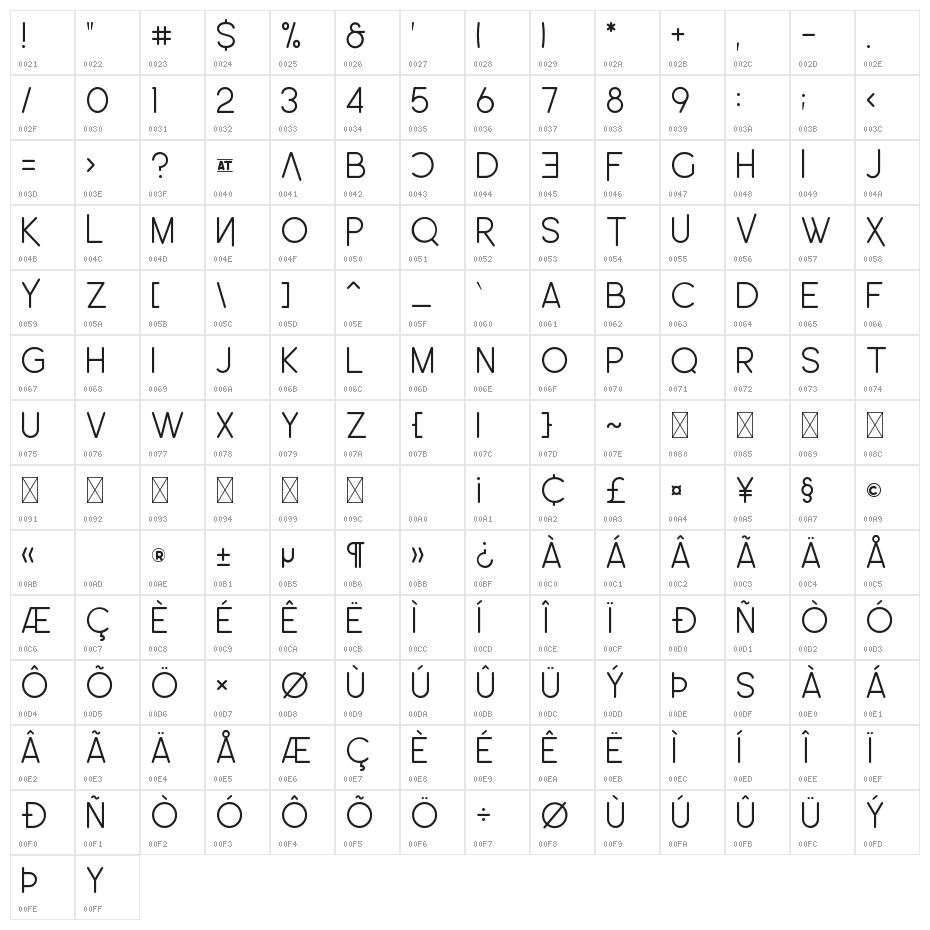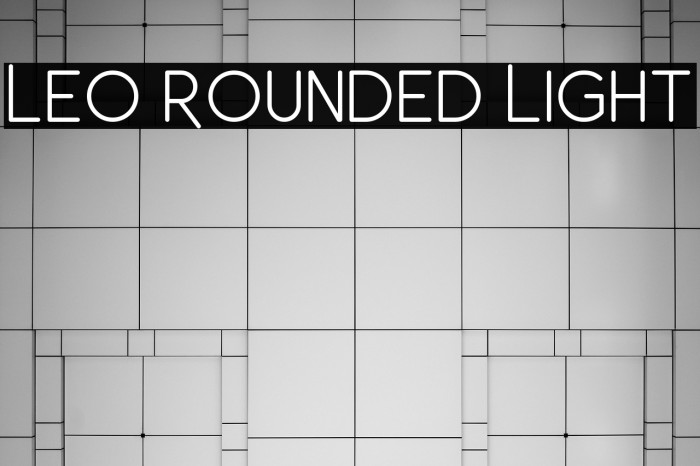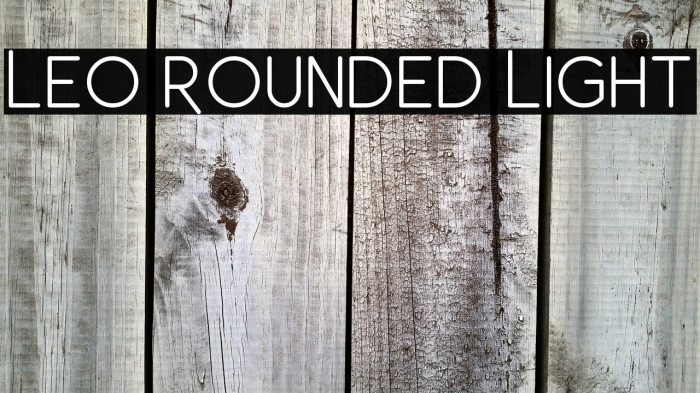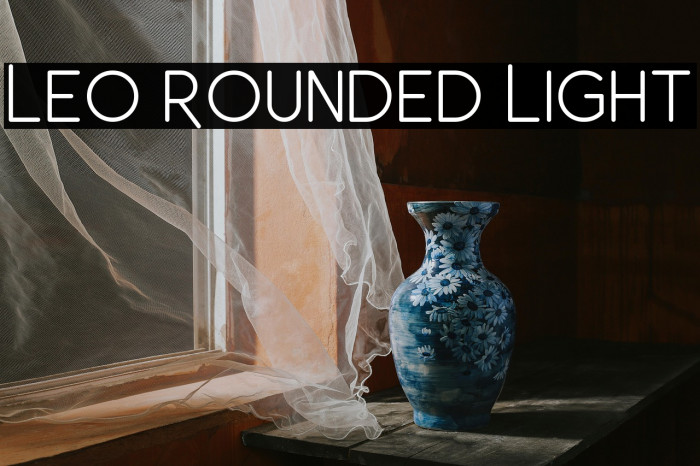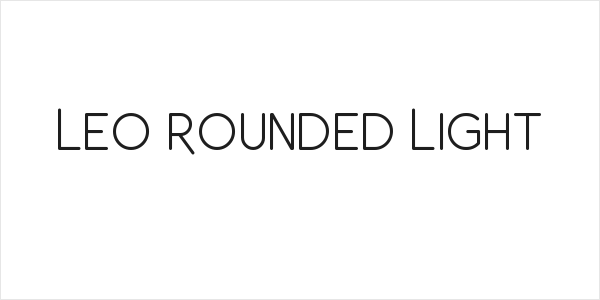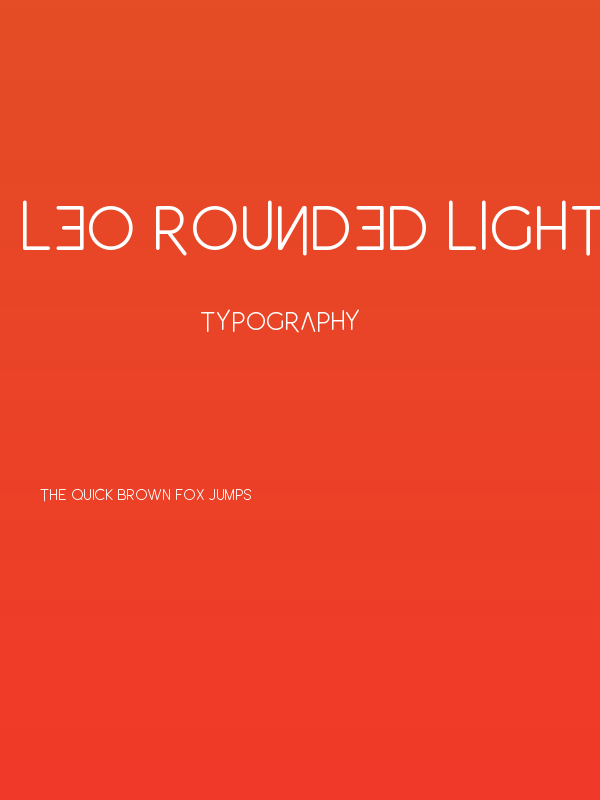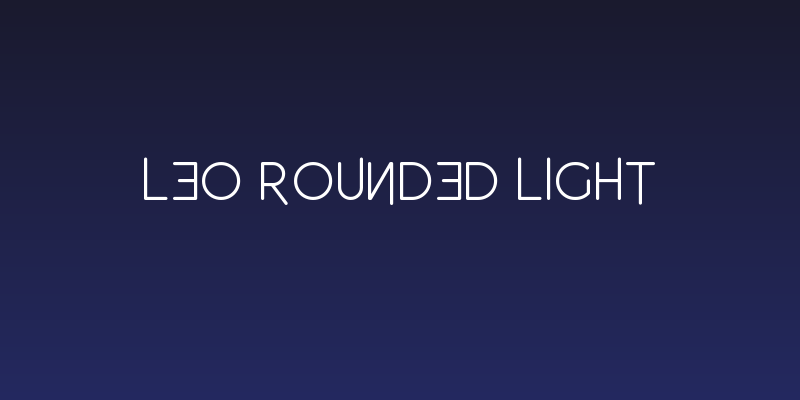
Leo Rounded Light Font
Leo Rounded Light Description
This font features a clean, modern aesthetic with rounded edges that give it a friendly and approachable appearance. The characters are evenly spaced, providing a balanced and harmonious look. The design is minimalist, with a focus on readability and simplicity, making it versatile for various applications. Its geometric shapes and uniform stroke width contribute to a contemporary feel, while the rounded terminals soften the overall appearance, adding a touch of warmth and personality.
| Use Case | Headlines, Body text, Logos |
| Proposed Projects | Ideal for branding, web design, user interfaces, and advertising materials where a modern and friendly tone is desired. |